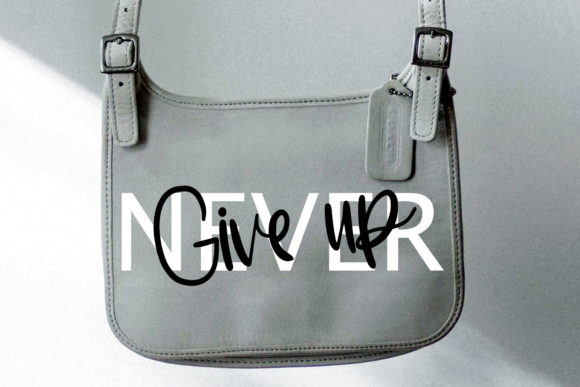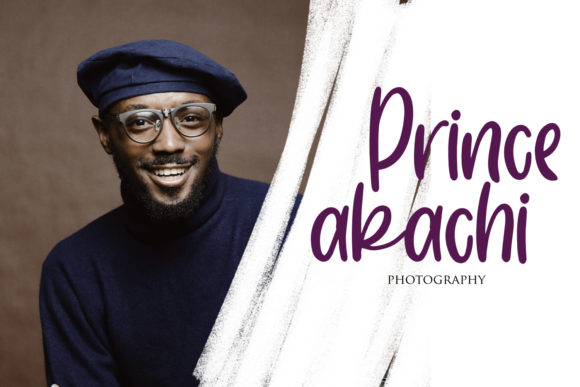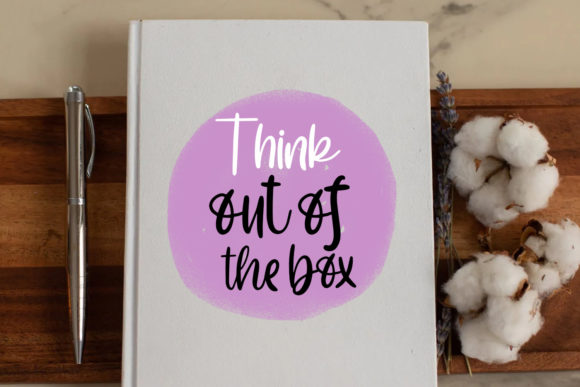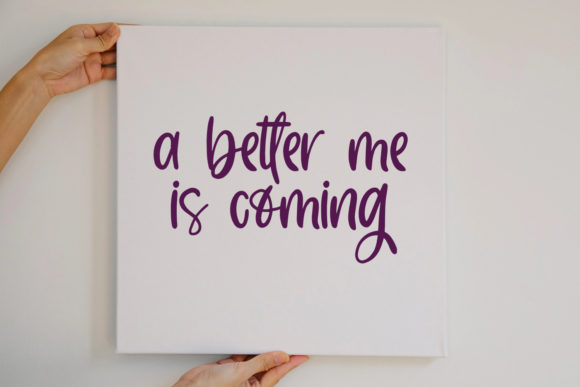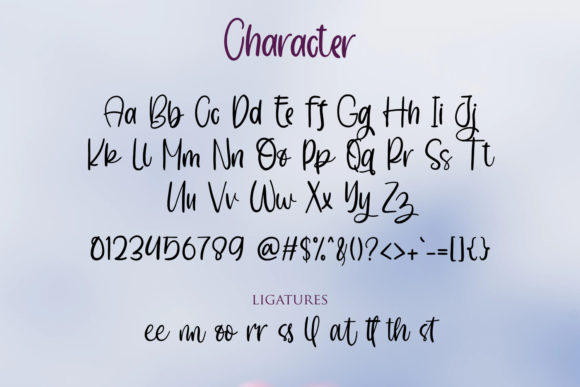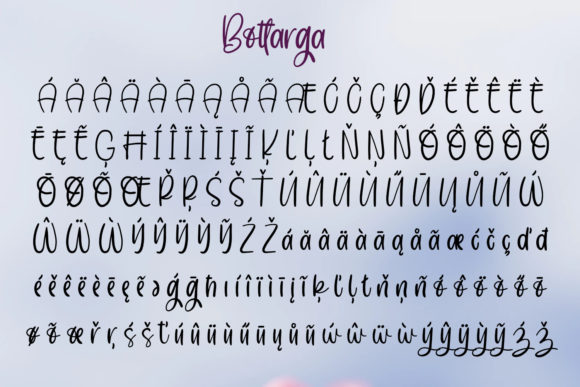
The Ultimate Guide to Bottarga Font: Adding a Fun and Friendly Touch to Your Designs
I’ll never forget the time I was working on a project for a client who wanted a fun and playful vibe, but I was struggling to find the right font to match their brand personality. I scoured the internet, tried out countless fonts, but nothing seemed quite right. That was until I stumbled upon Bottarga Font. This relaxed and informal handwritten font has been a game-changer for my designs, and I’m excited to share its awesomeness with you! 😊
An Honest Review of Bottarga Font
What I Love About Bottarga Font
• ✨ Versatility: Bottarga Font is adaptable and can be used on a variety of design ideas, from branding and packaging to social media graphics and more.
• ✅ Fun and Friendly Vibe: This font adds a playful touch to any project, making it perfect for designs that need a bit of personality.
• 💫 Easy to Read: Despite its informal nature, Bottarga Font is surprisingly easy to read, even at smaller sizes.
While Bottarga Font is an amazing addition to any design project, there are a few things to keep in mind:
• 🤔 Limited Formality: As a handwritten font, Bottarga may not be the best choice for very formal or professional projects.
• ⚠️ Glyph Limitations: While Bottarga has a range of glyphs and alternates, it may not have every special character or symbol you need.
The Backstory of Bottarga Font
While the origins of Bottarga Font are shrouded in mystery, it’s clear that its designer aimed to create a font that’s both fun and functional. With its relaxed, handwritten style, Bottarga Font is perfect for designers who want to add a personal touch to their work.
Font Name Bottarga Font
Author Create Big Supply
Q: What is Bottarga Font best used for?
A: Bottarga Font is versatile and can be used for a variety of design projects, from branding and packaging to social media graphics and more.
Q: Is Bottarga Font easy to read?
A: Yes, despite its informal nature, Bottarga Font is surprisingly easy to read, even at smaller sizes.